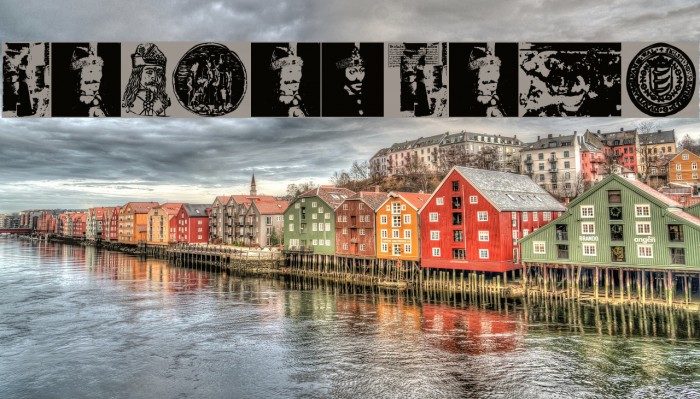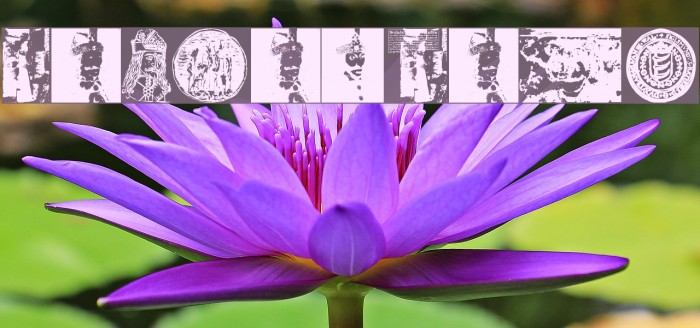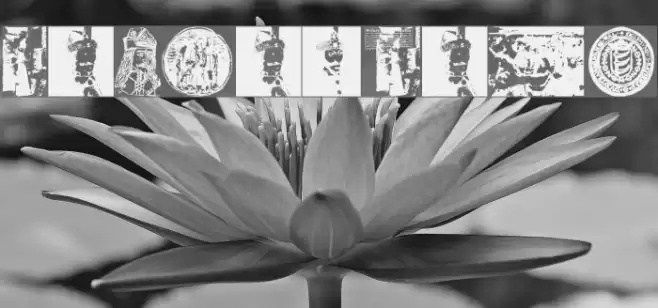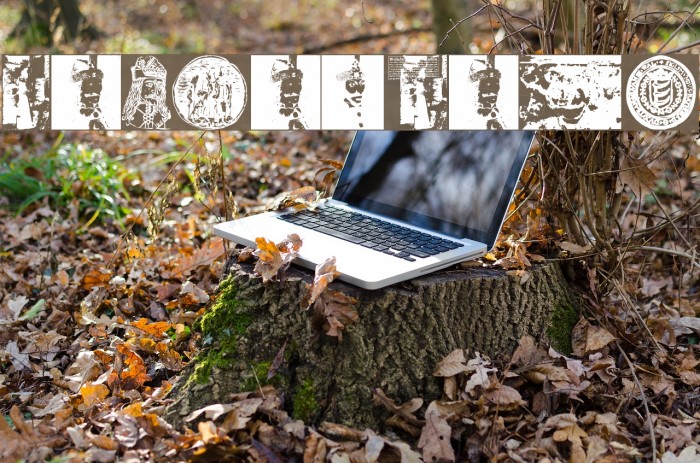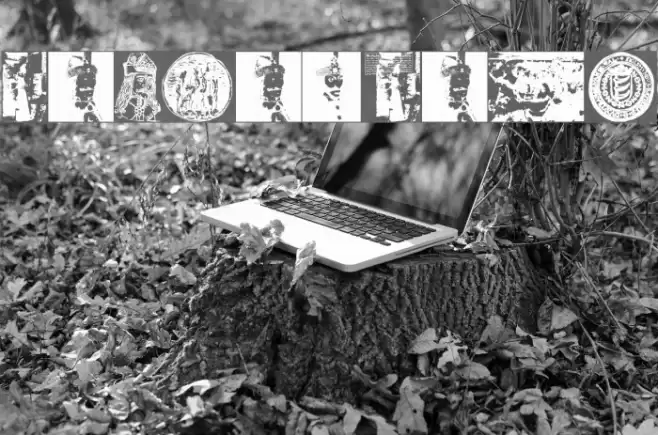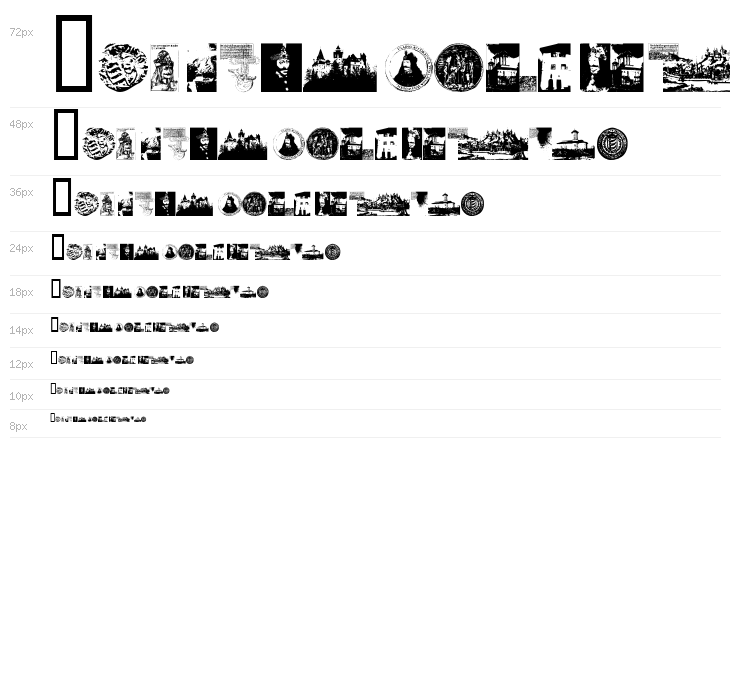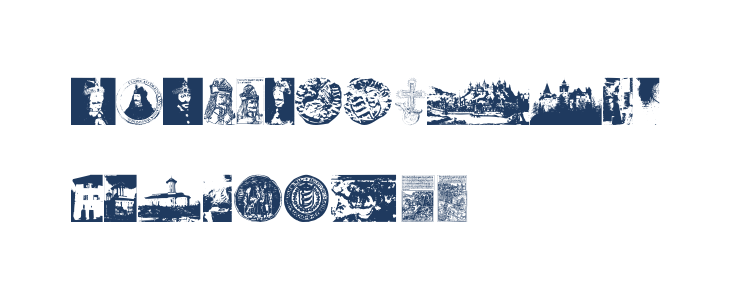
VladDraculBats Font
A highly decorative and pictorial font where each character is represented by a detailed black-and-white illustration, featuring historical figures, architecture, coins, and scenes reminiscent of Eastern European or Gothic themes.
| Overall Style | Decorative, Gothic, Historical |
| Use Case | Logos, Headlines, Posters, Themed Events |
| Proposed Projects | Themed posters, book covers, Halloween or vampire-related designs, historical event promotions, decorative titles. |